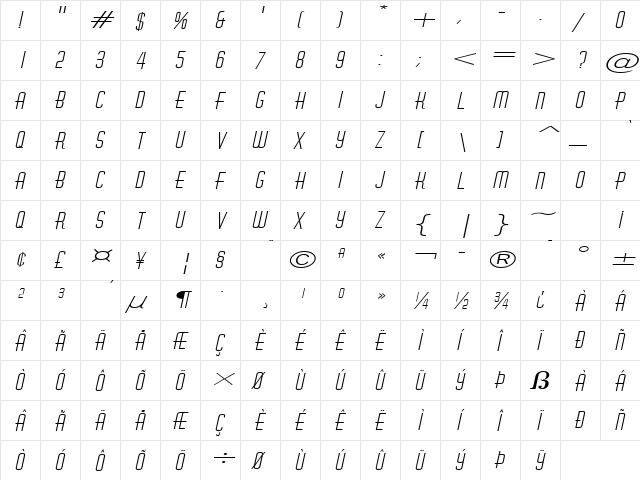
Hustle Extended Italic
Design Context for Hustle Extended Typeface
Hustle Extended is a composed and adaptable typeface that performs quietly and consistently across a wide range of design contexts. The slanted form adds forward momentum and visual energy.
Pro Tip: Use Hustle Extended for emphasis, pull quotes, and subheadings where its slanted energy can add rhythm to the layout.